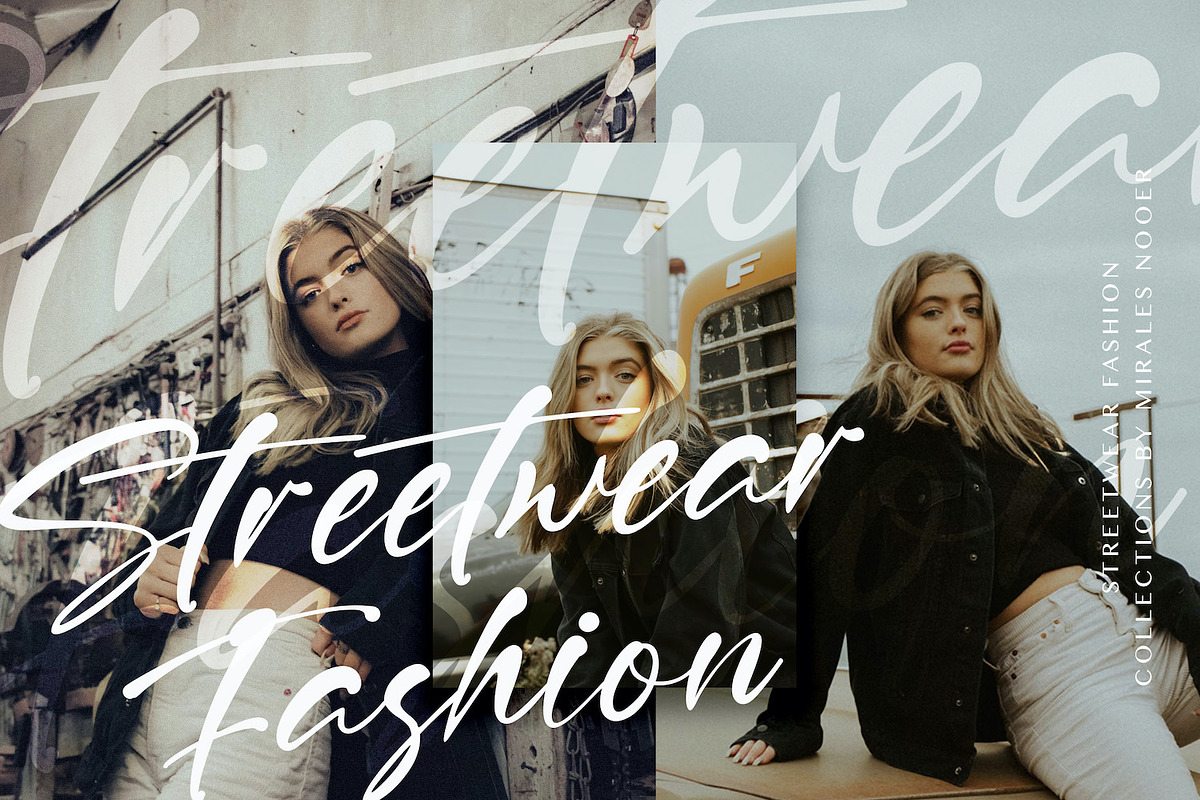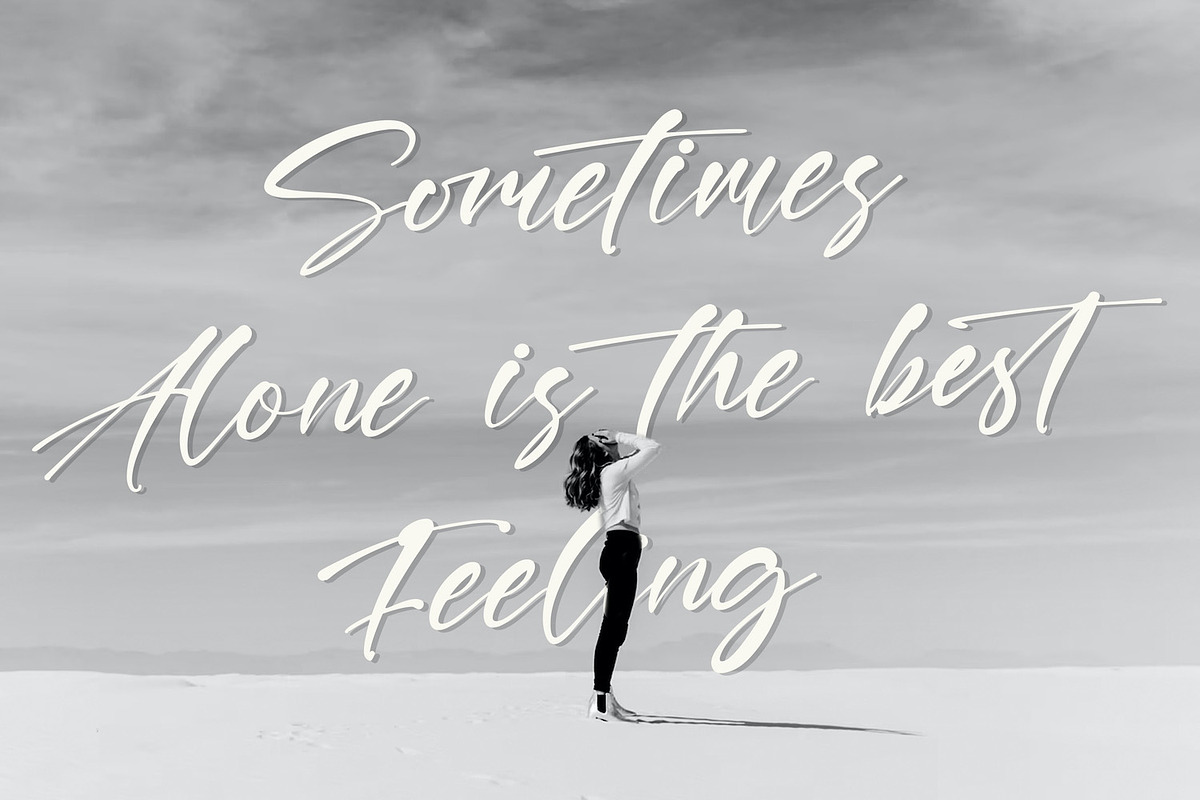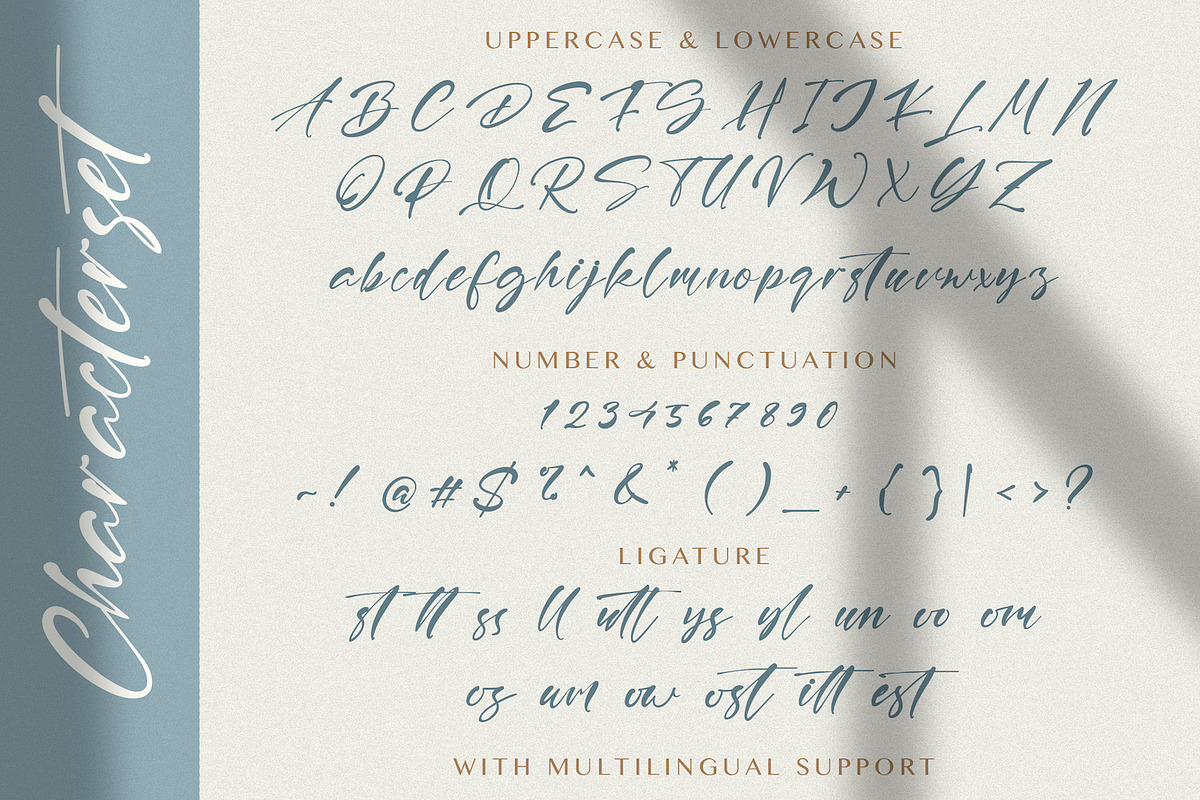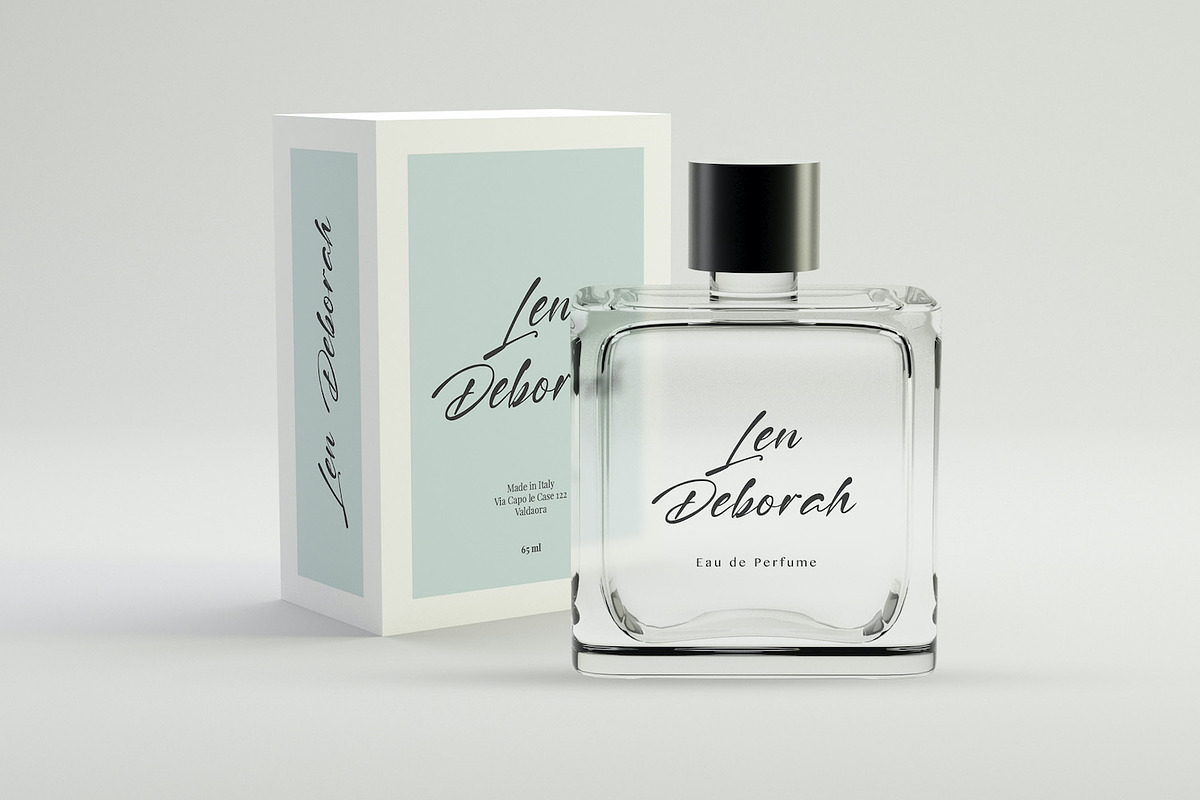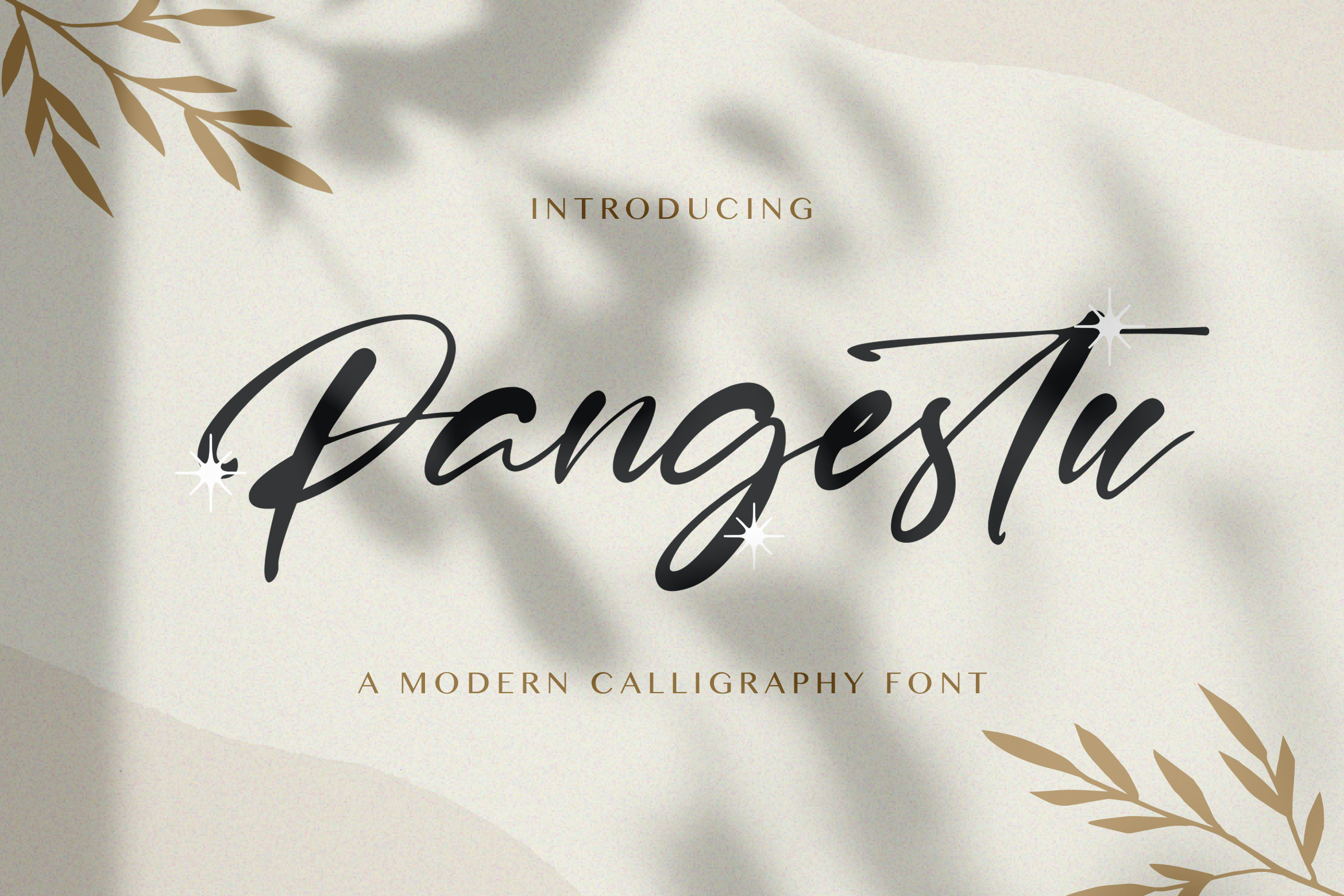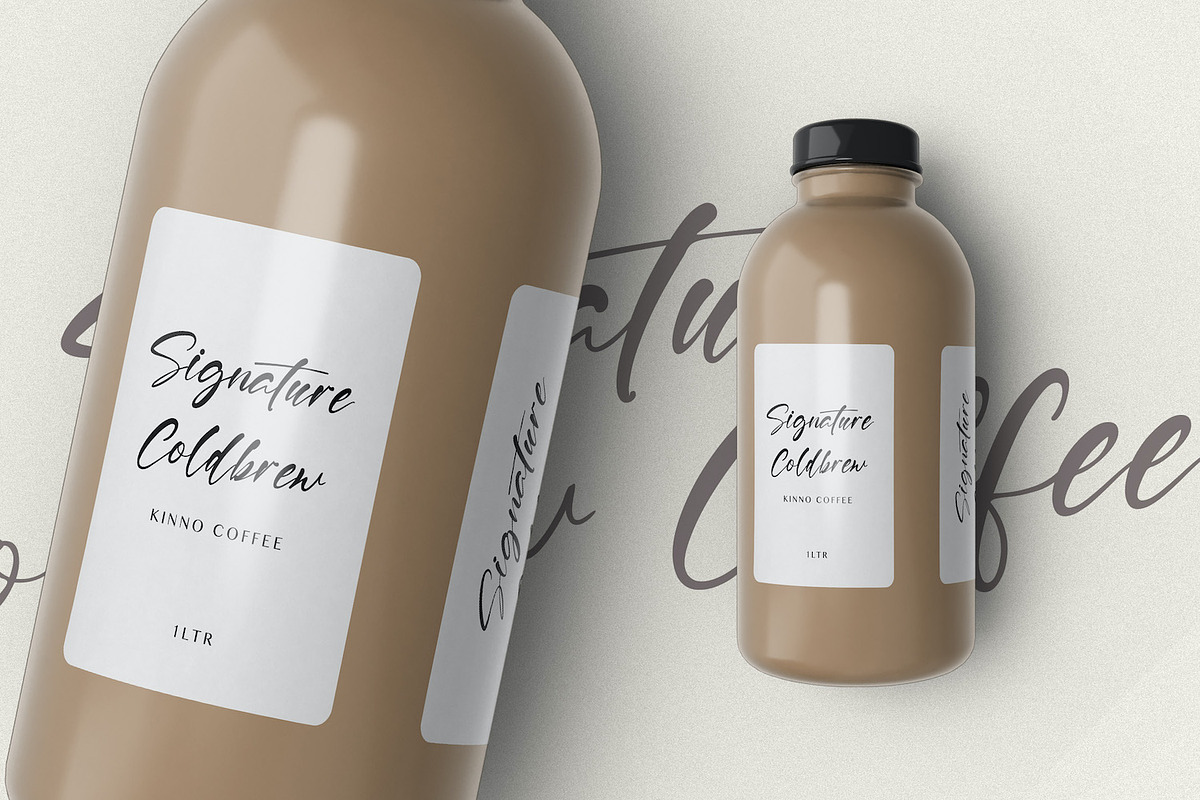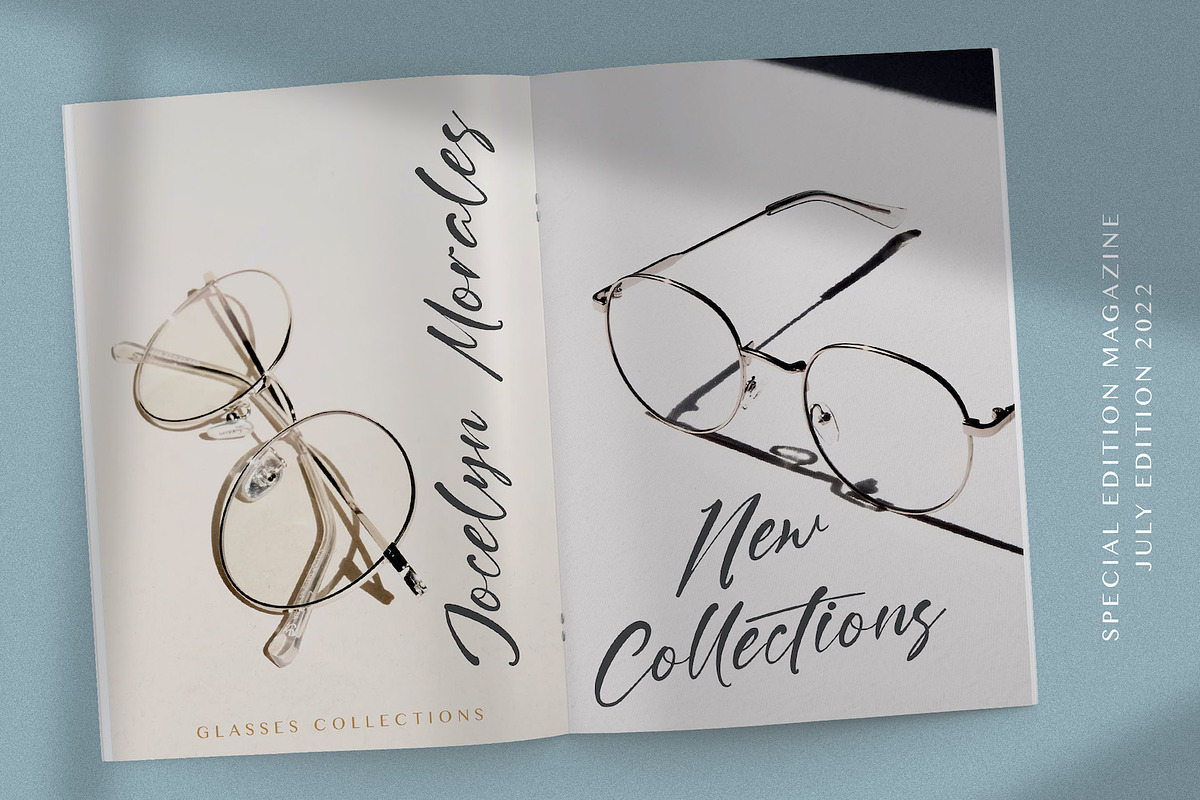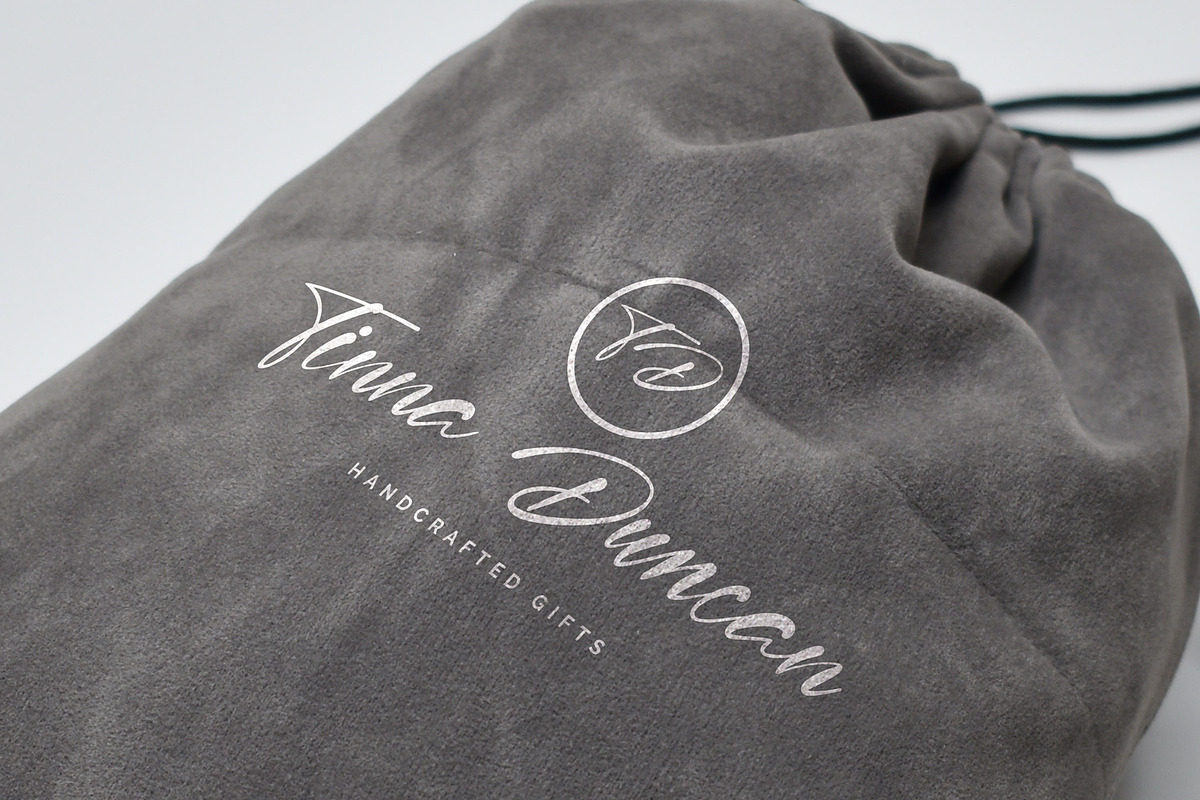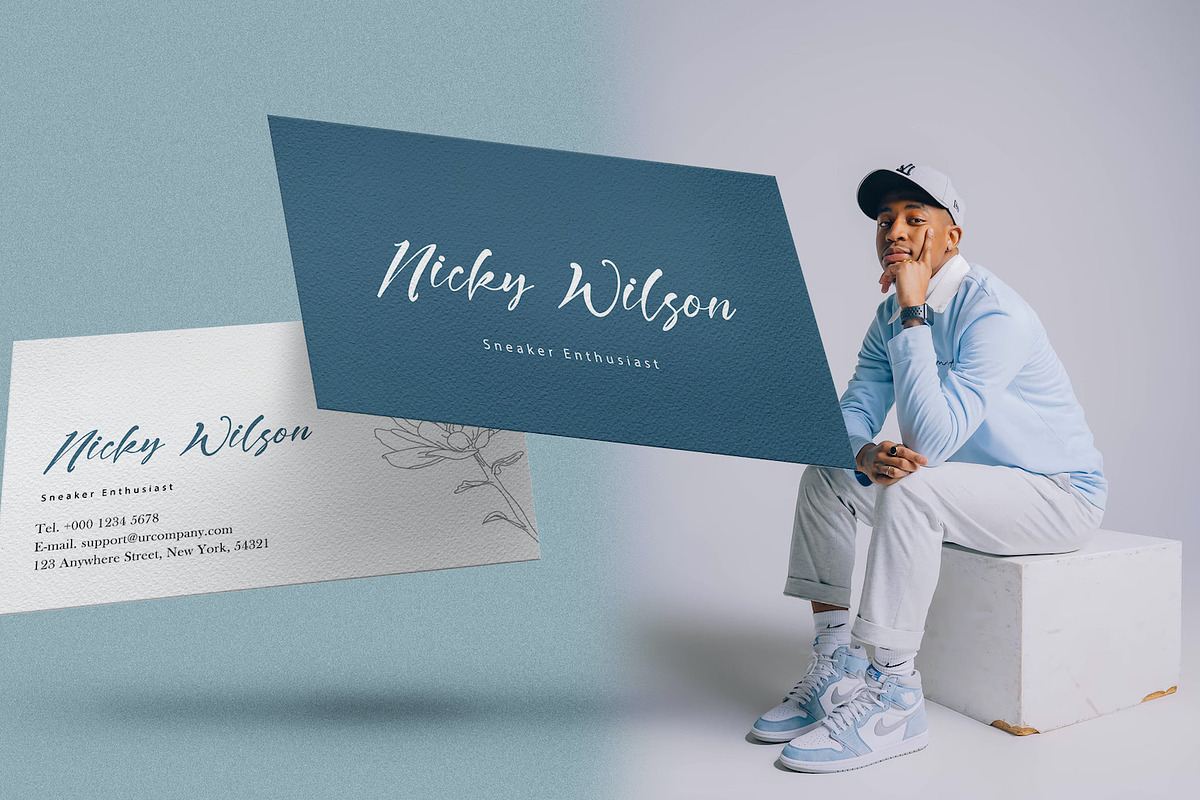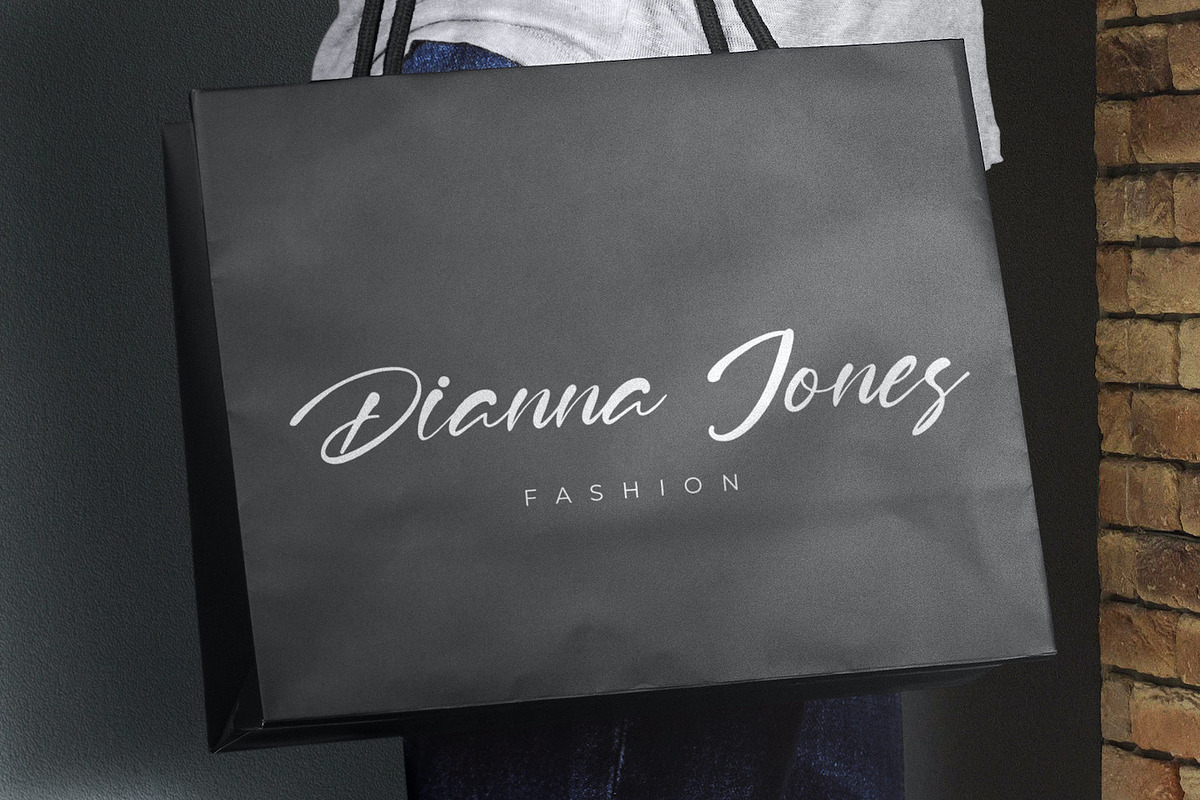
Pangestu - Calligraphy Font
Introducing Pangestu - Calligraphy Font
Pangestu is an exquisite handwritten font, masterfully designed to become a true favorite. It maintains its classy calligraphic influences while feeling contemporary and fresh. Fall in love with it and bring your projects to the highest levels!